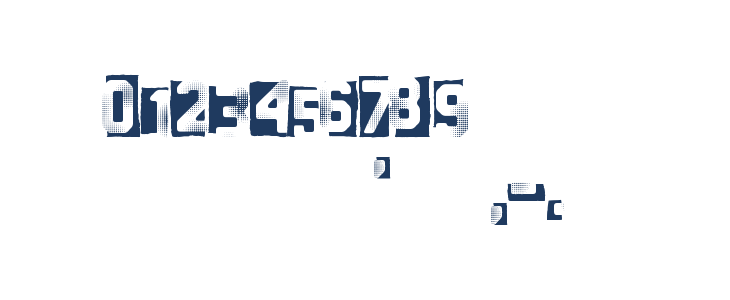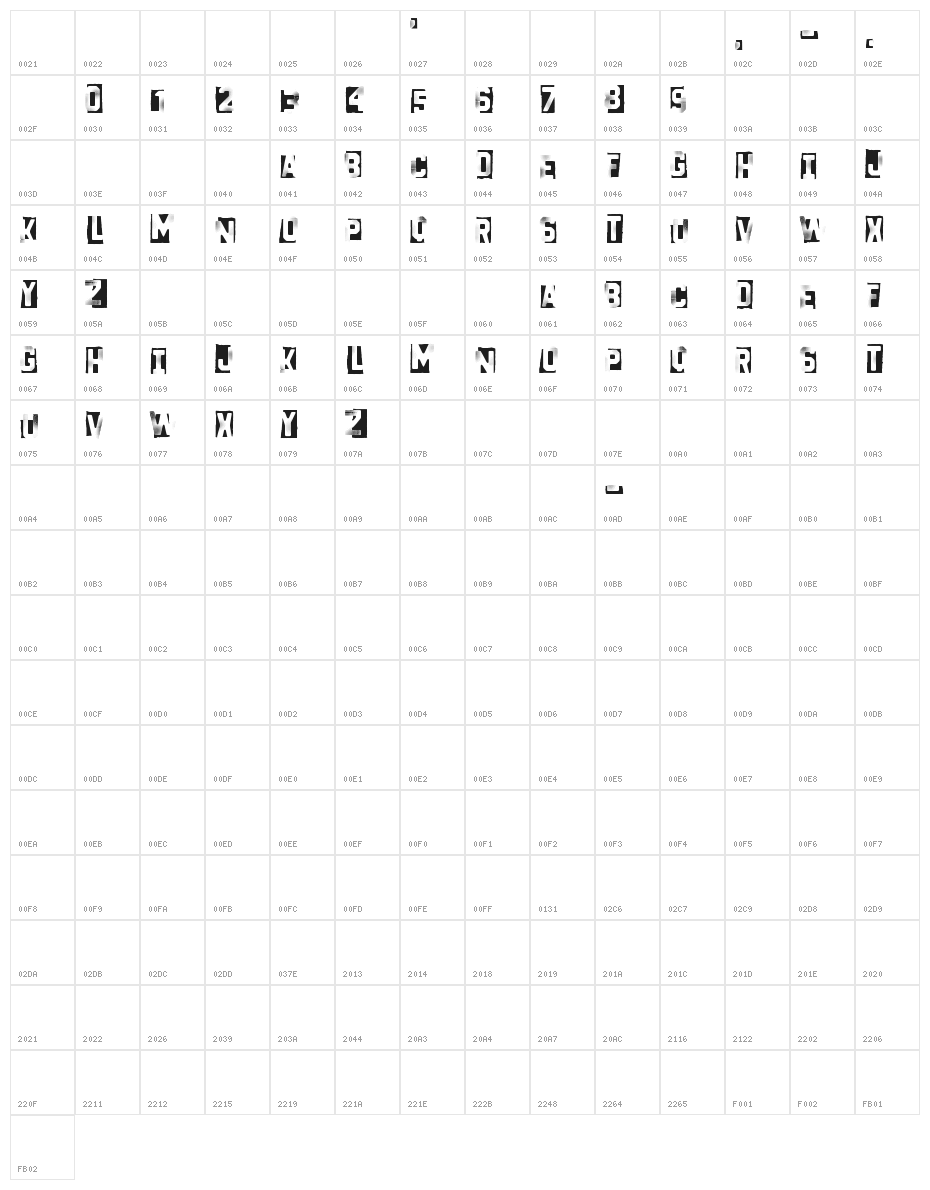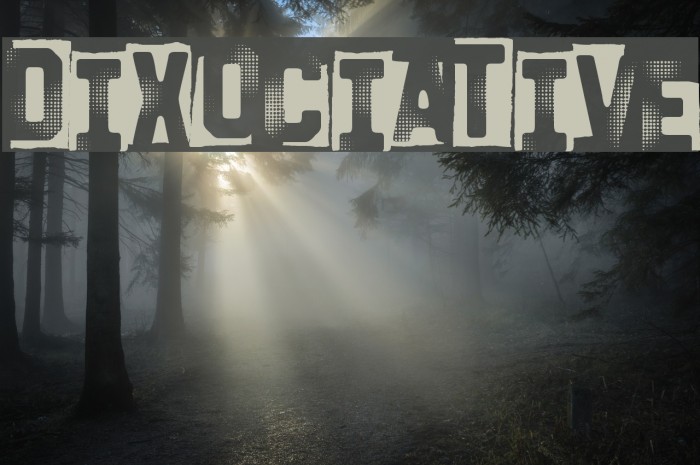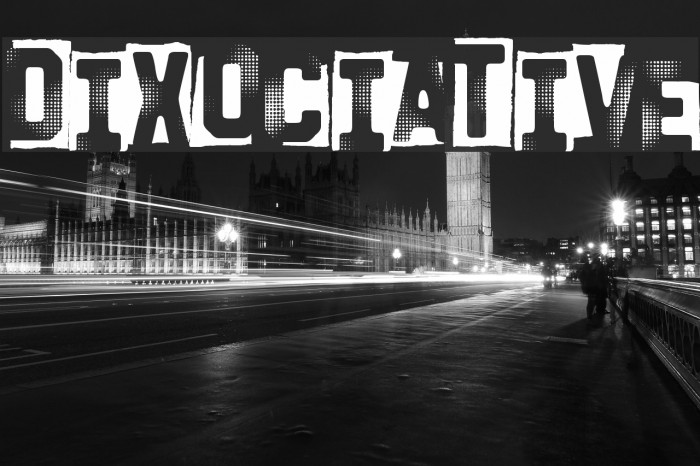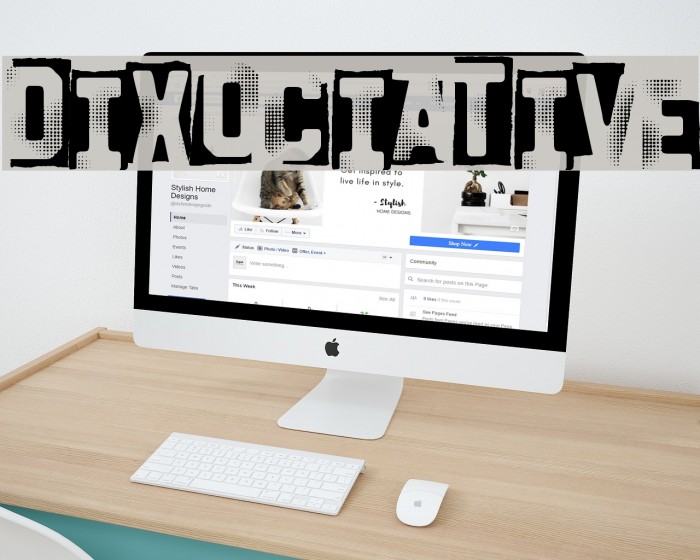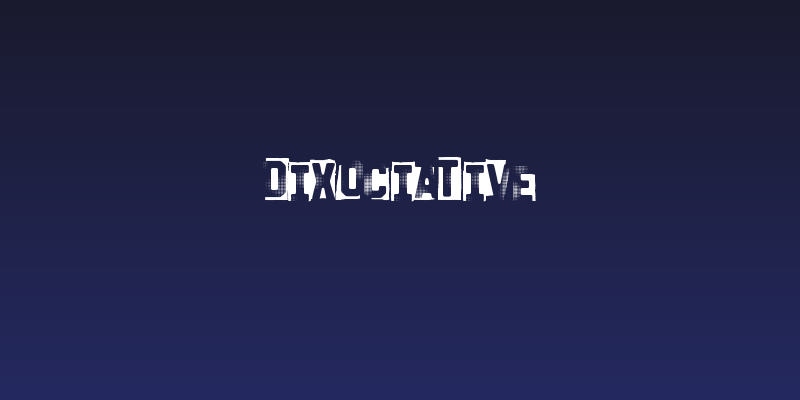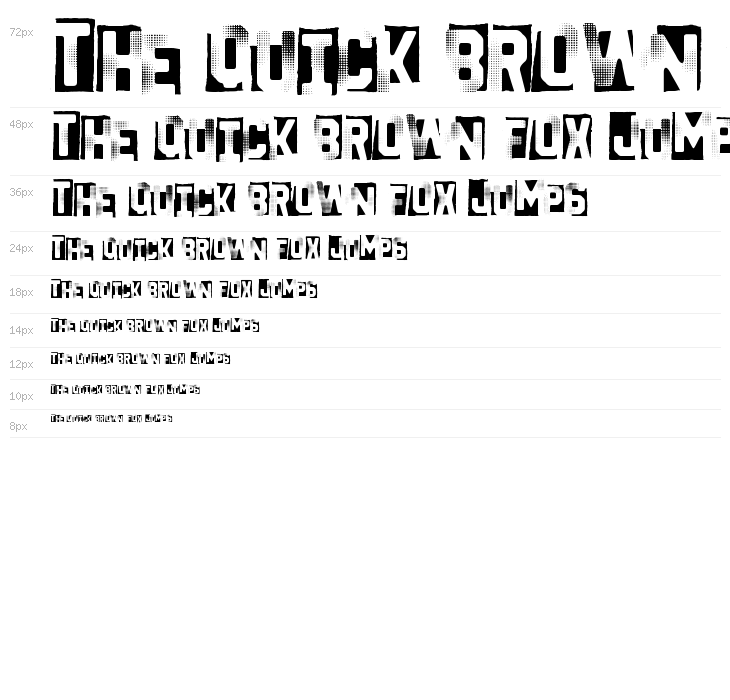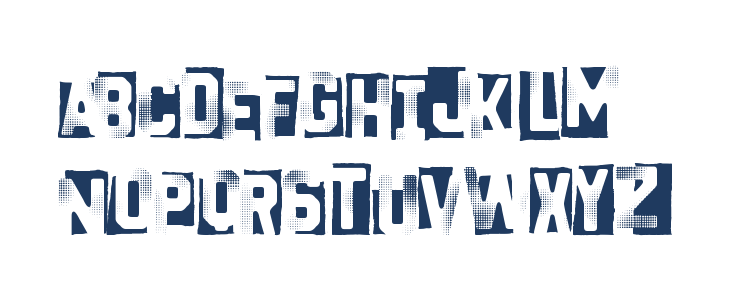
Dixociative Font
Dixociative Description
This font features a bold, distressed style with a halftone pattern overlay, giving it a gritty, urban feel. The characters are blocky and robust, with irregular edges that suggest a worn or weathered look. The halftone effect adds texture and depth, making the letters appear as if they are printed on rough paper or a textured surface. This font is highly decorative and eye-catching, suitable for designs that require a strong visual impact. The uppercase and lowercase letters maintain a consistent style, with numerals and special characters following the same design principles.
| Overall Style | Urban, Textured, Distressed |
| Proposed Projects | Ideal for posters, album covers, streetwear branding, and any project needing a bold, textured aesthetic. |